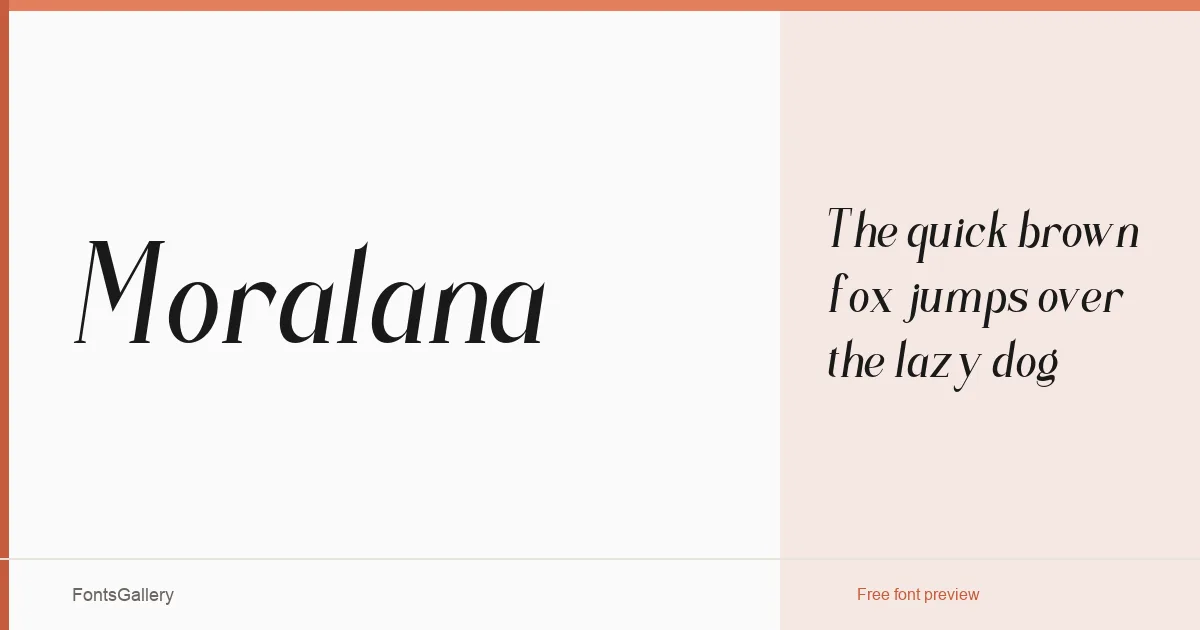
About Moralana Font
Moralana is an elegant serif typeface crafted by Rahagita Studio, designed to evoke a sense of luxury, romance, and timeless sophistication. Its refined character makes it a standout choice for projects that demand a classic yet deeply expressive visual identity. The font's graceful presence brings an air of distinction to any design it graces.
Moralana's letterforms embody a harmonious blend of elegant curves and classic serif structure, lending each character a romantic and luxurious quality. The refined strokes and careful proportions reflect a timeless sensibility, making it equally at home in vintage-inspired compositions and modern upscale designs. Every detail of the typeface reinforces its polished, classic personality.
Moralana shines brightest in applications such as logos, wedding stationery, invitation cards, branding materials, and editorial magazine layouts where elegance and sophistication are paramount. Its classic character makes it particularly well-suited for luxury brands and romantic event design. For a balanced typographic pairing, consider combining Moralana with Helvetica for clean contrast or Ballmain for a complementary stylistic harmony.